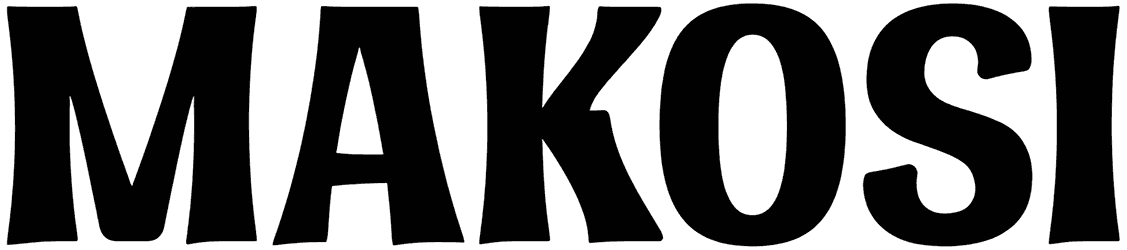
Makosi Font
It’s the contradictory display of modern vibes through a retro appearance that makes Makosi so one of a kind. And to top it off, it’s here as a bold font, always making sure all the eyes are on your text, no matter what you’re talking about.
Is it a toy store sign, a comedy show poster inviting people for a night of fun a couple of nights ahead, or beauty product labeling? Anyway, this classic font will be perfect for it.